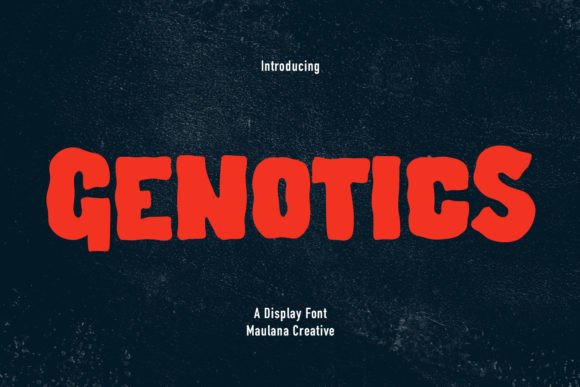
Genotics: A Bold, Wavy Font for Eye-Catching Designs
Fonts play a powerful role in how we perceive information. They set the tone, create visual interest, and can even influence emotions. When you're looking for something that stands out with energy and flair, Genotics is a font that delivers. Designed with bold wavy strokes, upright structure, and a fun character, Genotics is more than just a decorative display fontāitās a creative tool that brings attention to your message in the right way.
What Makes Genotics Unique?
Genotics isn't your typical sans-serif or serif font. It breaks the mold with its dynamic, hand-drawn style. The waves in each stroke give it movement, while the upright posture keeps it from feeling too playful or unprofessional. This balance makes it versatile enough to be used in a variety of real-world design situations without losing its charm.
Each letter feels like it's been crafted with intentionābold where it needs to be, yet refined enough to maintain readability in certain contexts. While it's not ideal for long blocks of text, it shines when used to highlight key elements like titles, logos, or headers.
Real-World Use Cases for Genotics
If you're working on a project that needs a little extra punch, Genotics could be the perfect fit. Letās explore some of the most common scenarios where this font truly comes into its own.
Logo Design
Logos are all about making an impression. Genotics adds a unique edge to branding efforts, especially for businesses targeting younger audiences or those wanting to stand out in a crowded market. Its stylized look works well for fashion labels, tech startups, or entertainment brands aiming for a modern and energetic vibe.
For example, imagine a new streetwear brand launching their identity. Using Genotics for the logo name gives it a bold, edgy feel that aligns perfectly with their target audience. Just make sure the font size and color contrast are strong enough to ensure legibility at different scales.
Movie and Book Titles
When it comes to movie posters or book covers, first impressions matter. Genotics helps designers craft eye-catching titles that immediately grab attention. The fontās dramatic curves and strong presence can evoke a sense of excitement or mystery depending on how it's styled.
Picture a horror film poster using Genotics in red ink with a black background. The contrast and motion in the letters enhance the intensity of the title, drawing viewers in before they've read a single word. Similarly, a children's fantasy book might use Genotics with a softer palette and added textures to create whimsy and adventure.
Event Promotion and Advertising
Whether it's a concert flyer, festival announcement, or product launch ad, Genotics can help your promotional material pop. Its lively appearance is great for conveying enthusiasm and urgency. Event organizers often use it for main headlines, knowing it will catch the eye of potential attendees scrolling through social media feeds or walking past a poster in a busy space.
One thing to keep in mind is that while Genotics is visually striking, it should be paired with simpler fonts for supporting text. This ensures the message remains clear and easy to digest, especially if there's a lot of information to present.
Product Packaging and Merchandise
Consumers are drawn to products that look exciting and trustworthy. Genotics can add personality to packaging for everything from cosmetics to snacks. For instance, a new line of organic energy drinks might use Genotics on the label to reflect vitality and innovation. The boldness of the font speaks to the productās purposeāenergizing and bold.
Merchandise such as T-shirts, mugs, or phone cases also benefits from this font. Itās memorable and has a distinct visual appeal that makes branded items more attractive to buyers.
Creative Projects and Social Media
Designers working on creative projects like posters, infographics, or social media content often turn to Genotics when they want to add a touch of uniqueness. It works particularly well in short phrases or taglines. Think of a motivational quote shared on InstagramāGenotics can amplify the messageās impact by making the words feel more expressive and alive.
Its versatility extends to digital platforms too. Whether you're designing for a website banner, a YouTube intro, or a TikTok overlay, Genotics adapts well to screen formats and maintains its visual strength.
Who Can Benefit from Using Genotics?
While Genotics is a decorative display font, it appeals to a wide range of users across industries. Here's a closer look at who might find it most useful:
- Graphic Designers: Those looking for a standout typeface to incorporate into client projects, especially when the goal is to create something bold and engaging.
- Marketing Professionals: People in advertising who need a font that commands attention and fits within fast-paced visual campaigns.
- Entrepreneurs and Brand Creators: Startups or independent creators who want their logos or slogans to reflect creativity and confidence.
- Digital Content Creators: Influencers, YouTubers, and social media managers who rely on visuals to tell stories and engage audiences quickly.
Choosing the Right Style and Color
Genotics comes in various styles, which means you can tailor it to match your projectās mood. However, not all variations may suit every context. Consider the following when selecting how to apply it:
- Color Contrast: Always choose colors that provide good contrast against the background. Darker shades like black or navy work best on light backgrounds, while white or yellow can be effective on dark ones.
- Layering and Effects: Adding subtle effects like drop shadows, gradients, or outlines can enhance Genotics' visibility and aesthetic appeal. But avoid overdoing itātoo many effects can distract from the message.
- Spacing and Alignment: Because of its decorative nature, spacing between letters (kerning) and alignment are important. Ensure the text doesnāt feel cluttered or hard to read.
Strengths and Limitations of Genotics
Like any font, Genotics has its strengths and limitations. Understanding these can help you decide whether itās the right choice for your next project.
Strengths
- High Visual Impact: Itās designed to draw the eye, making it excellent for headlines and titles.
- Versatile Application: Works well in both digital and print media due to its clean lines and bold structure.
- Emotional Expression: Conveys a sense of energy and creativity, which can be leveraged in branding and storytelling.
Potential Limitations
- Not Ideal for Long Text: Due to its decorative nature, itās not suitable for body copy or extended paragraphs.
- May Require Licensing: Before using it commercially, verify the licensing terms to ensure it meets your project requirements.
- Can Be Overpowering: If not balanced properly with other design elements, it might overwhelm the layout.
How to Pair Genotics with Other Fonts
To get the most out of Genotics, consider pairing it with complementary fonts that offer a contrasting balance. For example:
- Sans-Serif Fonts: Clean, minimalist sans-serif fonts like Montserrat or Open Sans work well as secondary text options. They let Genotics take center stage while keeping the rest of the content readable.
- Classic Serif Fonts: In more traditional designs, a serif font like Georgia or Times New Roman can ground the overall look and create a sophisticated contrast with Genotics.
The key is to maintain harmony in your design. Test different combinations to see what feels natural and supports your message effectively.
Practical Tips for Working with Genotics
Here are a few quick tips to help you integrate Genotics into your design workflow smoothly:
- Use Sparingly: Save it for the most important parts of your designālike titles or logosāto maximize its effect.
- Test on Different Devices: Make sure it looks sharp on both high-resolution screens and mobile devices.
- Consider Your Audience: If your target demographic prefers a more serious tone, Genotics might not be the best fit. But for youth-oriented or lifestyle brands, it can be a game-changer.
- Experiment with Sizes: Try scaling it up for maximum impact or down for subtler uses, like button labels or call-to-action prompts.
Industries That Love Genotics
Several industries have found creative ways to use Genotics:
- Fashion: Used in clothing labels, store signage, and event banners to reflect trendiness and modernity.
- Entertainment: Movie studios and music producers often pick it for promotional materials because it conveys drama and excitement.
- Food and Beverage: Appears on packaging for gourmet foods, health-focused snacks, and artisanal drinks to add a touch of flair.
- Technology and Innovation: Some tech companies use it to emphasize cutting-edge concepts or product names in marketing materials.
Final Thoughts on Genotics
Genotics is more than just a pretty fontāitās a design asset that can elevate your creative projects. From logos to movie titles, it brings energy and distinction to whatever it touches. As with any font, success depends on thoughtful application and understanding your audienceās expectations.
So whether you're a designer looking for inspiration or a business owner trying to refresh your brand image, Genotics is worth considering. It's a versatile option that can add personality and impact to your work when used correctly.